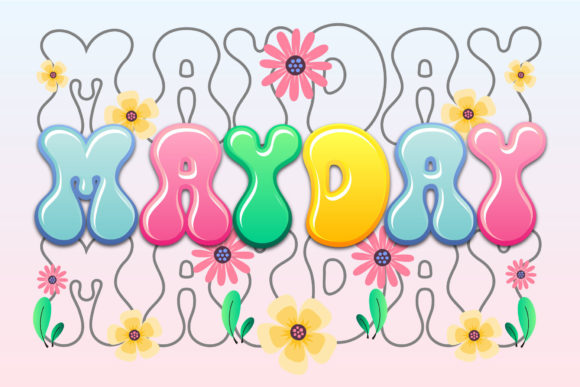
Looking for the best font to make your art brochures stand out? Look no further than Mayday Font from Nobu Collections!
Mayday is not just any display font - it's an exuberant burst of color and personality that will infuse your designs with a cheerful spirit. Whether you're creating covers, posters, spring designs, marketing materials, or anything else that needs to pop, Mayday is the perfect choice to make your work shine.
But Mayday isn't just a pretty face - it's also incredibly versatile and easy to work with. Its bold lines and unique character make it ideal for headlines and attention-grabbing text, while its wide range of glyphs and ligatures make it perfect for use in longer passages of text as well.